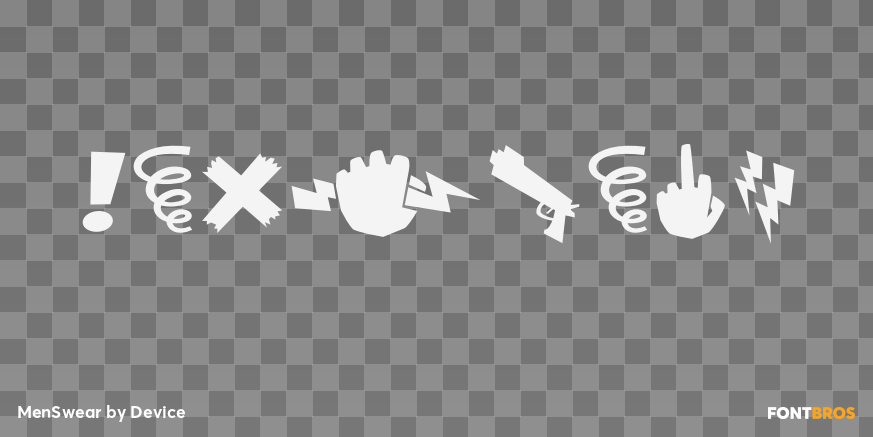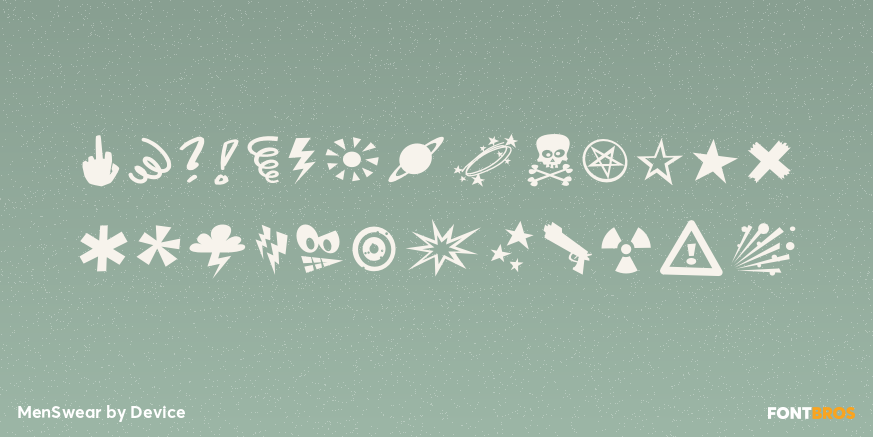
MenSwear
Font Family by Device
MenSwear is a bold, eclectic dingbat font family by Device built around edgy symbols, ornaments, pictograms, and flat-shape graphics. Its high-contrast, punk-leaning attitude gives it a playful but sharp visual punch, making it feel more like a ready-made set of graphic elements than a conventional text face.
With 1 font style and 59 glyphs included, this design is especially suited to posters, badges, apparel graphics, packaging accents, zines, and other display work that benefits from novelty and visual impact. If you're looking for a symbol font with a wacky, offbeat personality, this one brings a distinctive mix of bold shape and decorative energy.